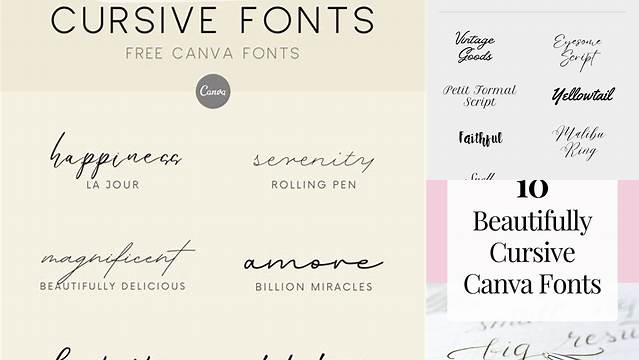
Cute Cursive Fonts For Canva: Design Guide
Introduction: Discovering the Charm of Cursive Fonts in Canva
Hey guys! Are you ready to dive into the enchanting world of cursive fonts in Canva? If you're looking to add a touch of elegance, personality, or just a bit of flair to your designs, cursive fonts are the way to go. Cursive fonts, with their flowing strokes and handwritten feel, can bring a unique and sophisticated touch to any project, whether it's a wedding invitation, a social media graphic, or a branding element. In this comprehensive guide, we'll explore a variety of cute cursive fonts available in Canva, discuss how to use them effectively, and provide tips for creating stunning designs that capture attention and convey your message with style. Canva, as a user-friendly design platform, offers a vast library of fonts, including a wide array of cursive options. However, navigating this extensive collection can be overwhelming. That's why we're here to help you curate the best choices for your specific needs. We'll cover everything from classic and elegant scripts to modern and playful cursive styles, ensuring you have the perfect font for every occasion. So, let's get started and unlock the potential of cursive fonts in your Canva designs! Understanding the nuances of different cursive fonts is crucial. Some fonts exude timeless sophistication, ideal for formal invitations and upscale branding. Others have a more whimsical and relaxed vibe, perfect for blogs, social media posts, and creative projects. Recognizing these distinctions will empower you to make informed decisions and select fonts that truly resonate with your design goals. Remember, the right font can elevate your design from ordinary to extraordinary, adding a layer of personality and visual appeal that captivates your audience. Throughout this guide, we'll provide examples and practical tips to help you master the art of using cursive fonts effectively. We'll explore font pairings, color palettes, and layout techniques that complement cursive styles, ensuring your designs are not only beautiful but also impactful. So, whether you're a seasoned designer or just starting out, this guide will equip you with the knowledge and inspiration to create stunning visuals with Canva's cute cursive fonts.
Why Choose Cursive Fonts? The Psychology and Impact
Why are cursive fonts so appealing, you might ask? Well, there's a whole psychology behind it! Cursive fonts evoke a sense of personal touch, warmth, and creativity. They mimic handwriting, which inherently feels more intimate and human compared to standard block fonts. This makes them particularly effective for projects where you want to create an emotional connection with your audience. Think about it – a handwritten note feels much more personal than a typed one, right? The same principle applies to design. When you use a cursive font, you're essentially adding a touch of your personality and creating a sense of authenticity. This can be incredibly powerful, especially in today's digital world where people crave genuine connections. Cursive fonts can also convey different moods and styles depending on their specific characteristics. A flowing, elegant script might be perfect for a wedding invitation, conveying sophistication and romance. A playful, bouncy cursive might be ideal for a children's book cover, exuding fun and energy. Understanding the nuances of different cursive styles allows you to tailor your font choices to the specific message and emotion you want to communicate. Moreover, cursive fonts can enhance the visual hierarchy of your design. They can be used to highlight key words or phrases, drawing the viewer's eye and emphasizing important information. However, it's crucial to use cursive fonts judiciously. Overusing them can make your design look cluttered and difficult to read. The key is to strike a balance, using cursive fonts strategically to add visual interest without compromising readability. In addition to their aesthetic appeal, cursive fonts can also be a powerful branding tool. A distinctive cursive font can become a signature element of your brand identity, helping you stand out from the crowd and create a memorable impression. Think of brands like Coca-Cola, whose iconic cursive logo is instantly recognizable worldwide. By carefully selecting and consistently using a cursive font in your branding materials, you can build a strong and cohesive brand image that resonates with your target audience. So, whether you're designing a logo, a website, or a social media campaign, consider the impact of cursive fonts. They can add a touch of magic to your designs, creating a lasting impression and fostering a deeper connection with your audience. Let's delve into the specifics of how to choose and use these fonts effectively in Canva.
Top Cute Cursive Fonts in Canva: Our Handpicked Selection
Okay, let's get to the fun part – exploring the top cute cursive fonts in Canva! Canva offers a treasure trove of options, and we've handpicked some of our favorites to get you started. These fonts range from classic and elegant to modern and playful, ensuring there's something for every project and style. First up, we have "Brush Script MT." This font is a classic choice for a reason. It's elegant, legible, and has a timeless appeal. Brush Script MT is perfect for wedding invitations, thank-you notes, and any project where you want to convey a sense of sophistication. Its flowing strokes and graceful curves create a beautiful, handwritten feel. Next, let's talk about "Pacifico." Pacifico is a fun and friendly cursive font that's perfect for adding a touch of whimsy to your designs. It's ideal for blog headers, social media graphics, and projects targeted towards a younger audience. Its rounded letters and playful curves give it a cheerful and approachable vibe. If you're looking for something a bit more modern, "Playlist Script" is a fantastic option. This font has a contemporary feel with its clean lines and slightly condensed letters. It's perfect for logos, branding materials, and any project where you want to convey a sense of style and sophistication. Playlist Script strikes a great balance between elegance and modernity. Another standout font is "Great Vibes." As the name suggests, Great Vibes exudes positive energy. It's a beautiful, flowing script that's perfect for headings, quotes, and any project where you want to make a statement. Its dramatic flourishes and elegant curves make it a real attention-grabber. For a more delicate and feminine touch, consider "Aphrodite Slim Pro." This font is incredibly elegant and refined, making it perfect for wedding invitations, stationery, and other high-end designs. Its thin strokes and graceful curves create a sense of timeless beauty. Moving on to something a bit more unique, "Herr Von Muellerhoff" is a bold and dramatic script that's perfect for adding a touch of vintage charm to your designs. Its strong strokes and distinctive letterforms make it a real standout choice. Last but not least, let's mention "Yellowtail." Yellowtail is a casual and playful cursive font that's perfect for adding a touch of fun to your projects. Its slightly rough edges and handwritten feel give it a relaxed and approachable vibe. These are just a few of the many cute cursive fonts available in Canva. We encourage you to explore the font library and experiment with different options to find the perfect fit for your projects. Remember to consider the overall style and message you want to convey when choosing a font. The right font can make all the difference in creating a design that truly resonates with your audience.
How to Use Cursive Fonts Effectively in Canva: Best Practices and Tips
Now that we've explored some fantastic cursive fonts, let's talk about how to use them effectively in Canva. Using cursive fonts well is an art, and there are a few best practices to keep in mind to ensure your designs look polished and professional. Readability is key. While cursive fonts are beautiful, they can sometimes be challenging to read, especially in large blocks of text. Therefore, it's generally best to use cursive fonts for headings, subheadings, and short phrases, rather than for body text. This will help maintain the visual appeal of the font without sacrificing readability. Font pairing is crucial. Cursive fonts often work best when paired with a simpler, more legible font. A classic sans-serif font like Open Sans or Montserrat can provide a nice contrast to the flowing lines of a cursive font, creating a balanced and visually appealing design. Avoid pairing cursive fonts with other overly decorative fonts, as this can create a cluttered and confusing look. Consider the context. The font you choose should be appropriate for the project and the message you're trying to convey. A formal script might be perfect for a wedding invitation, but it wouldn't be the best choice for a children's birthday party invitation. Think about the overall tone and style of your design and select a font that complements it. Use color strategically. The color of your cursive font can have a significant impact on the overall design. A bold, vibrant color can make your cursive font stand out, while a more subtle color can create a softer and more elegant look. Experiment with different color combinations to find what works best for your project. Pay attention to spacing. Proper spacing is essential for ensuring your cursive font is legible and visually appealing. Adjust the letter spacing and line height to create a balanced and harmonious look. Avoid overcrowding the letters, as this can make the font difficult to read. Don't overuse cursive fonts. While cursive fonts can add a touch of elegance and personality to your designs, using too many of them can be overwhelming. Stick to one or two cursive fonts per project, and use them sparingly to highlight key elements. Experiment and have fun! Canva makes it easy to try out different fonts and see what works best for your project. Don't be afraid to experiment with different combinations and styles to find your own unique look. The most important thing is to have fun and let your creativity shine. By following these best practices, you can use cursive fonts effectively in Canva to create stunning designs that capture attention and convey your message with style. Let's move on to some specific examples and practical tips to further enhance your cursive font skills.
Practical Examples and Design Inspiration: Putting Cursive Fonts to Work
Let's get practical and explore some design examples to see how cursive fonts can be put to work in Canva. Sometimes, seeing real-world applications can spark your own creativity and help you understand how to use these fonts effectively. Wedding Invitations: Cursive fonts are a classic choice for wedding invitations. Imagine a beautiful invitation with the bride and groom's names written in an elegant script like "Aphrodite Slim Pro" or "Great Vibes." Pair it with a simple sans-serif font for the details, and you have a timeless and sophisticated design. Add some floral elements or a subtle background texture to complete the look. Social Media Graphics: Cursive fonts can add a touch of personality to your social media graphics. Use a playful font like "Pacifico" or "Yellowtail" for quotes or headlines, and pair it with a bold image or background color to grab attention. Remember to keep the text concise and easy to read, as people often scroll quickly through their feeds. Logos and Branding: A distinctive cursive font can become a signature element of your brand identity. Consider using a font like "Playlist Script" or "Herr Von Muellerhoff" for your logo or tagline. Ensure the font reflects your brand's personality and resonates with your target audience. Consistency is key when using cursive fonts in branding materials. Greeting Cards: Cursive fonts are perfect for adding a personal touch to greeting cards. Write a heartfelt message in a flowing script like "Brush Script MT" and pair it with a beautiful illustration or photograph. Handmade cards have a special charm, and cursive fonts can enhance that feeling. Blog Headers: A well-chosen cursive font can make your blog header stand out. Use a bold and eye-catching font like "Great Vibes" or "Herr Von Muellerhoff" for your blog title, and pair it with a clear and legible sans-serif font for the navigation menu and other elements. Your blog header is your first impression, so make it count. Quote Graphics: Cursive fonts are ideal for creating visually appealing quote graphics. Use a flowing script like "Aphrodite Slim Pro" or "Brush Script MT" to highlight the quote, and pair it with a beautiful background image or color gradient. Quote graphics are highly shareable on social media, so make them visually striking. Business Cards: Adding a touch of cursive to your business card can make it more memorable. Use a simple and elegant script like "Playlist Script" or "Aphrodite Slim Pro" for your name or tagline, and pair it with a clean and professional sans-serif font for the rest of the information. Your business card is a reflection of your brand, so make it stylish and professional. These are just a few examples of how you can use cursive fonts effectively in Canva. The possibilities are endless, so don't be afraid to experiment and let your creativity flow. By exploring different design styles and applications, you'll develop a better understanding of how to use cursive fonts to their full potential. Remember, the key is to balance aesthetics with readability and ensure your font choices complement the overall design message. Let's wrap up with some final thoughts and key takeaways.
Conclusion: Mastering Cursive Fonts in Canva for Stunning Designs
So, there you have it – a comprehensive guide to using cute cursive fonts in Canva. We've explored the psychology behind their appeal, showcased some top font choices, discussed best practices, and provided practical examples to inspire your creativity. Mastering cursive fonts in Canva can truly elevate your designs, adding a touch of elegance, personality, and visual interest. Remember, the key to effective use is balance. Don't overuse cursive fonts, and always prioritize readability. Pair them with simpler fonts, use color strategically, and pay attention to spacing. By following these guidelines, you can create stunning designs that capture attention and convey your message with style. Cursive fonts are a powerful tool in a designer's arsenal. They can evoke emotions, create connections, and enhance the visual appeal of your projects. Whether you're designing a wedding invitation, a social media graphic, or a brand logo, a well-chosen cursive font can make a significant impact. Canva's extensive font library provides a wealth of options, so don't be afraid to experiment and find the perfect fit for your needs. Explore different styles, try out various combinations, and develop your own unique aesthetic. Design is a journey of discovery, and cursive fonts are just one of the many tools you can use to express your creativity. As you continue to hone your design skills, remember to stay inspired, keep learning, and never stop exploring. The world of design is constantly evolving, and there's always something new to discover. Cursive fonts, with their timeless appeal and versatility, will continue to be a valuable asset in your design toolkit. So, go ahead and unleash your creativity! Dive into Canva's font library, experiment with different cursive styles, and create designs that are both beautiful and impactful. With practice and a keen eye for detail, you'll become a master of cursive fonts, crafting stunning visuals that leave a lasting impression. Happy designing, guys! And remember, the most important thing is to have fun and let your creativity shine. Whether you're a seasoned designer or just starting out, the world of cursive fonts in Canva offers endless possibilities for creating beautiful and impactful designs. Embrace the challenge, explore the options, and let your imagination soar. The results will be well worth the effort.